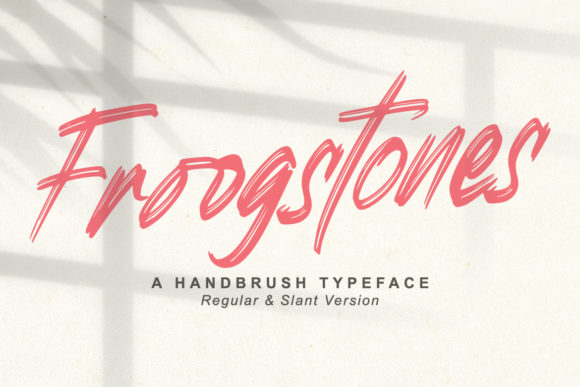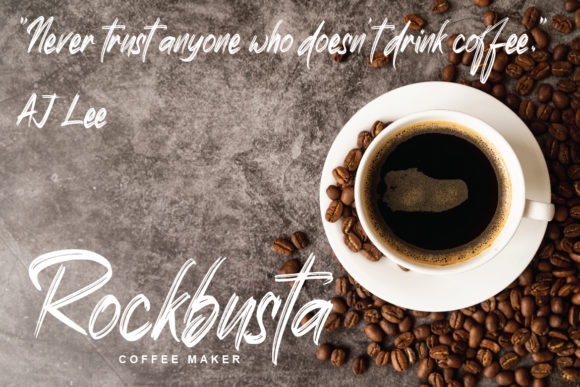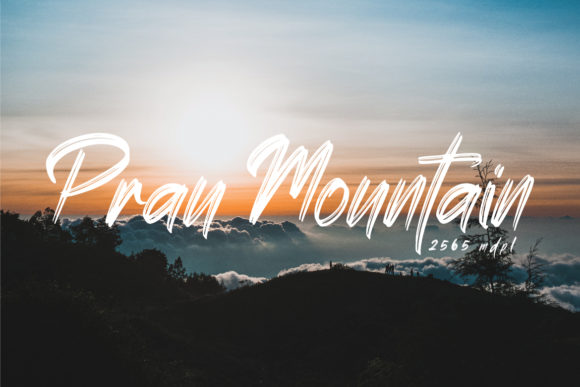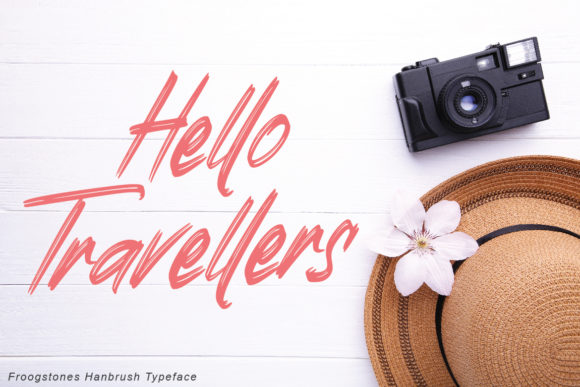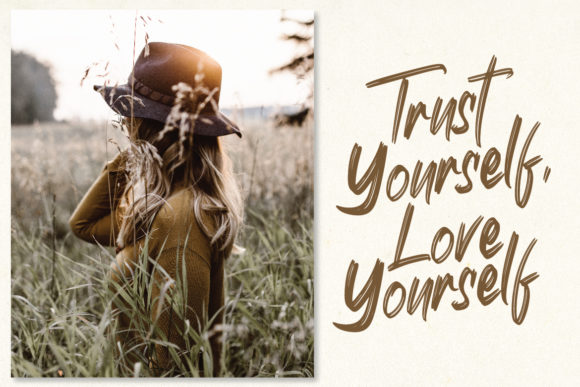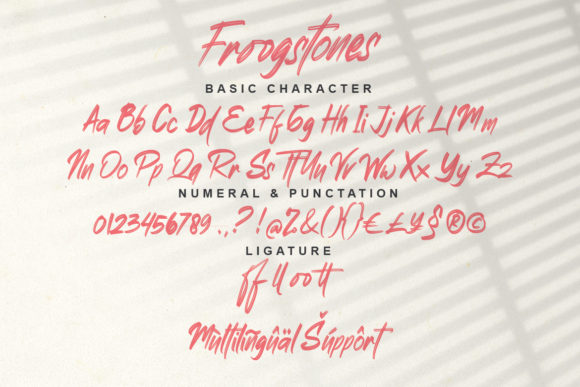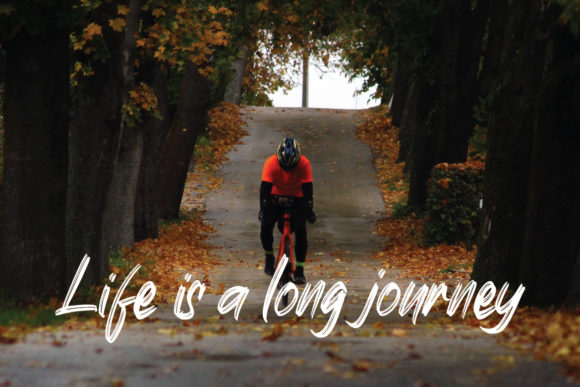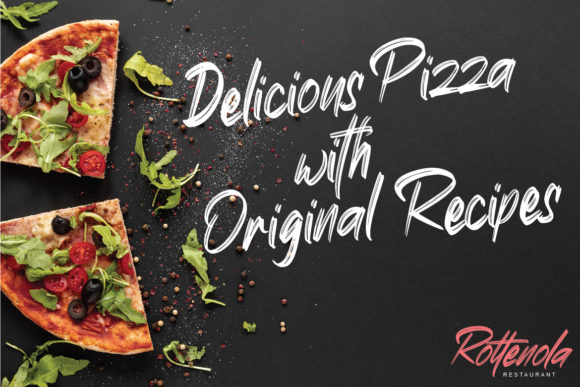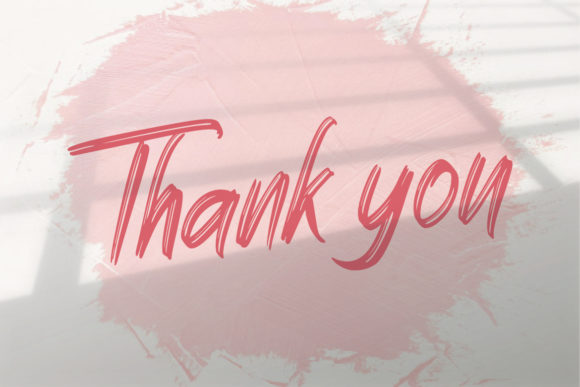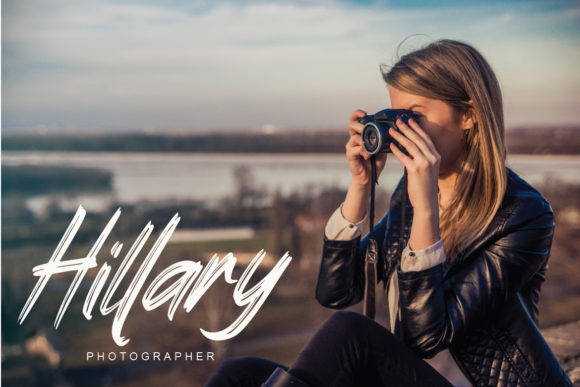
Froogstones Font
About Froogstones Font
Froogstones is a gorgeously handwritten script with beautifully light lettering. Use it to add a charming feel to your next arts & crafts idea.